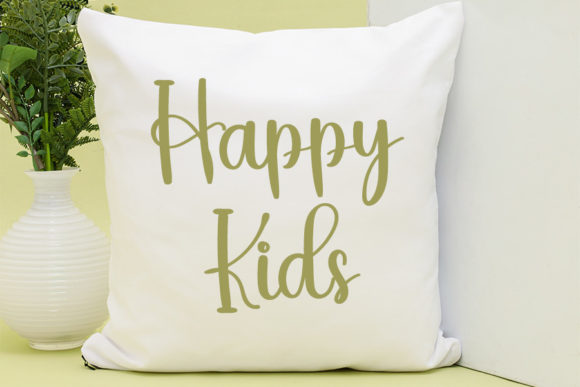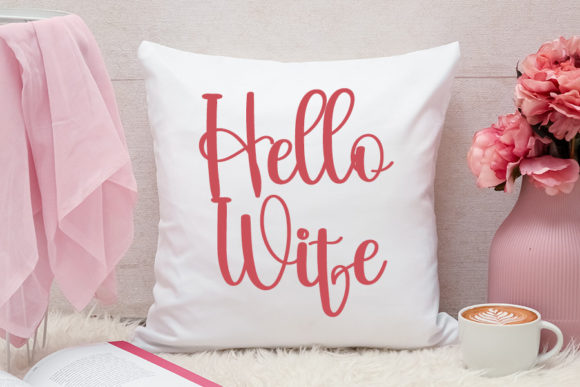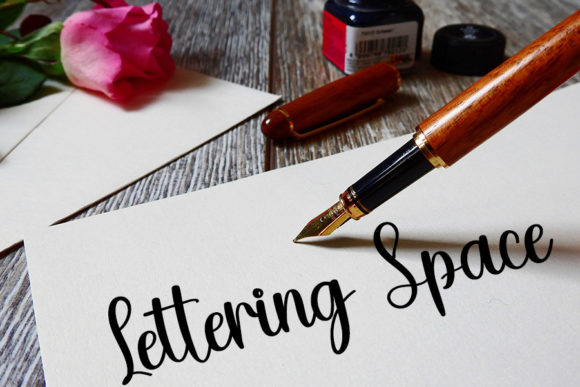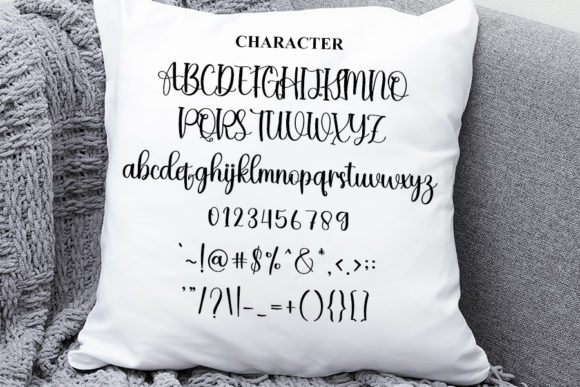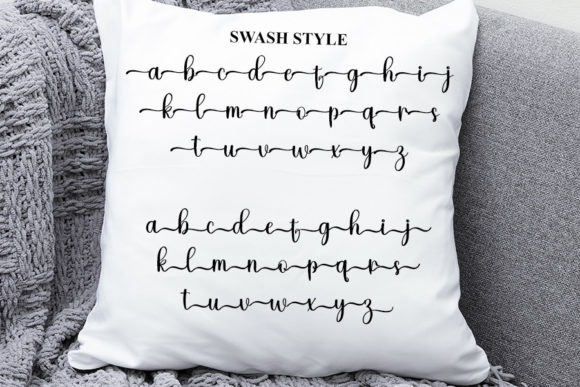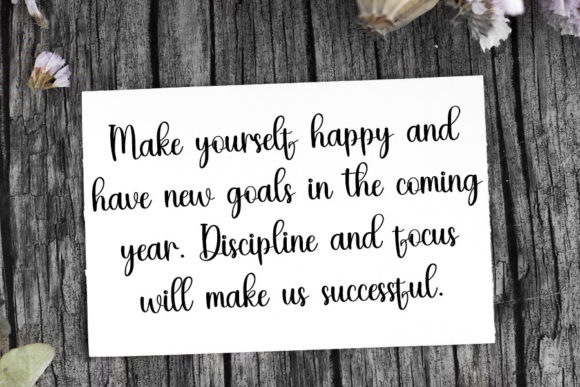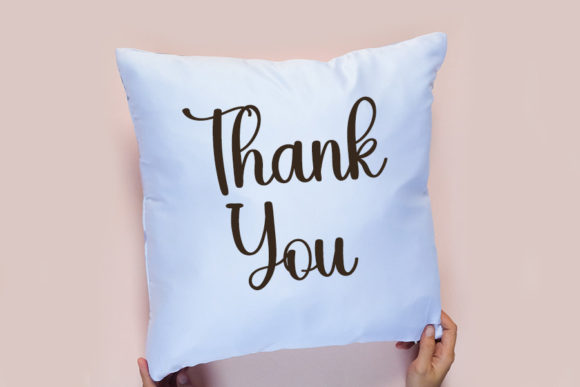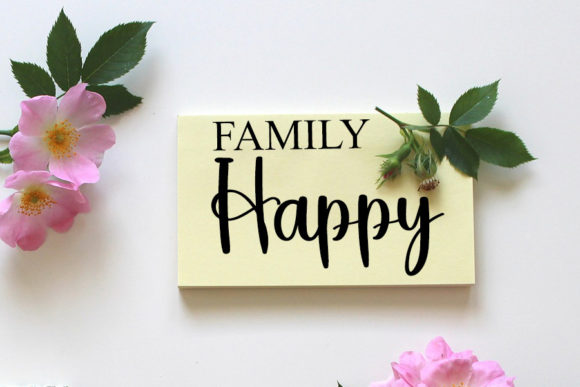
Pillow Font
About Pillow Font
**Pillow Font: Beautifully Refined Elegance for Every Design**
Introducing *Pillow Font*, a beautiful and refined script font that exudes class, elegance, and a modern aesthetic. This versatile typeface is perfect for a myriad of applications, including logos, branding, invitations, stationery, wedding designs, social media posts, and beyond. With its PUA encoding, accessing the stunning glyphs and ligatures is a seamless experience, offering you endless creative possibilities.
The allure of *Pillow* lies in its timeless and sophisticated design. Every letter is crafted with precision, creating a font that is not just visually appealing but also versatile in its application. Whether you’re aiming for a logo that makes a lasting impression, elegant wedding invitations, or captivating social media posts, *Pillow* adds a touch of refined beauty to your designs.
The font’s class, elegance, and modern look make it a go-to choice for a wide range of creative projects. Its versatility allows it to seamlessly adapt to different design aesthetics, ensuring that it enhances the visual appeal of your work across various platforms.
One of the notable features of *Pillow* is its PUA encoding, providing easy access to a plethora of amazing glyphs and ligatures. This feature empowers you to explore and incorporate unique elements into your designs effortlessly, allowing for a truly customized and personalized touch.
In summary, *Pillow Font* is not just a typeface; it’s an embodiment of beautifully refined elegance that transforms your designs into visual masterpieces. Elevate your projects with the timeless charm of *Pillow*, turning every creative endeavor into a statement of class and sophistication. Whether you’re designing for business, celebrations, or social media, let *Pillow* be the font that adds a touch of modern elegance to your creative repertoire.